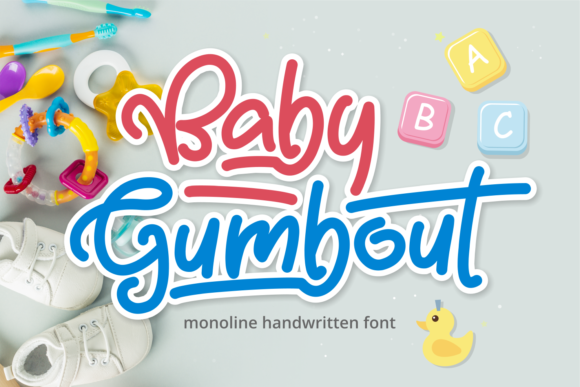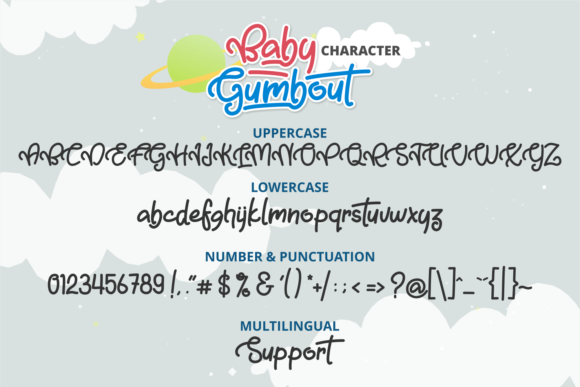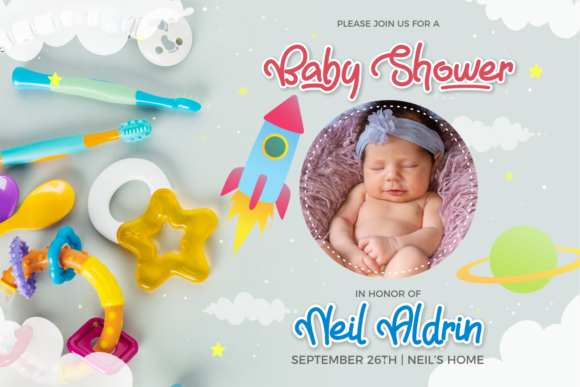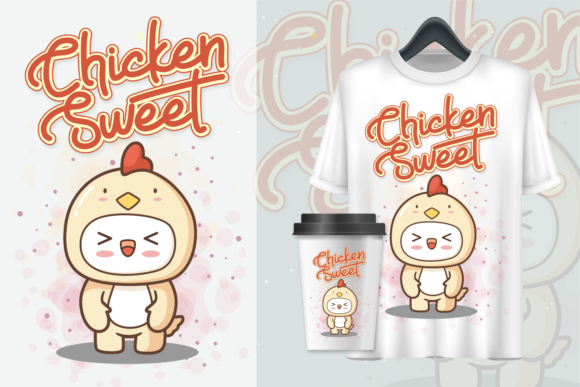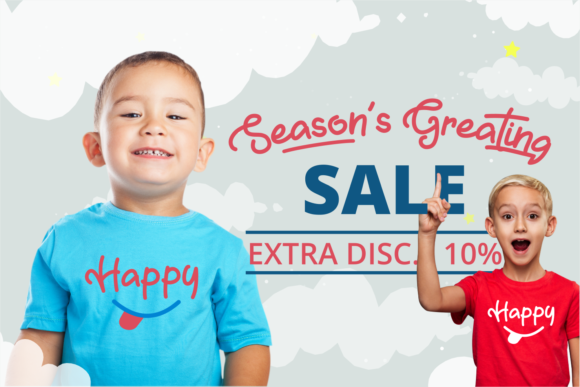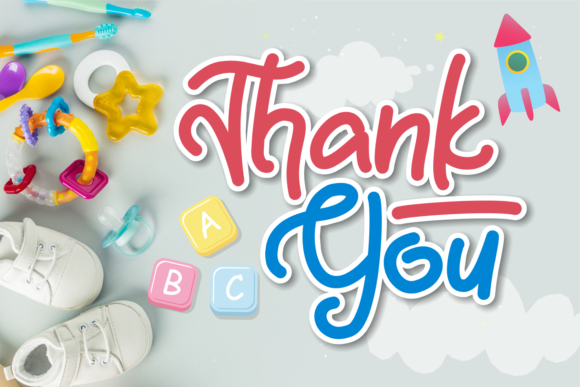
Baby Gumbout Font
About Baby Gumbout Font
Baby Gumbout is a cheerful, funny and friendly handwritten font. It will elevate a wide range of design projects to the highest level, be it branding, headings, wedding designs, invitations, signatures, logos, labels, and much more!